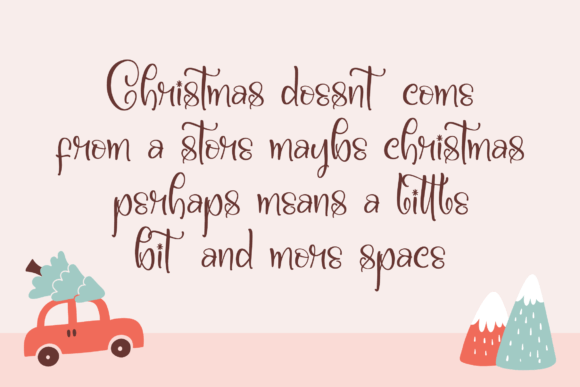
Christmas Eve Font
Christmas Eve is a sweet and adorable handwritten font. Whatever the topic, this font will be a wonderful asset to your font library, as it has the potential to enhance any creation.